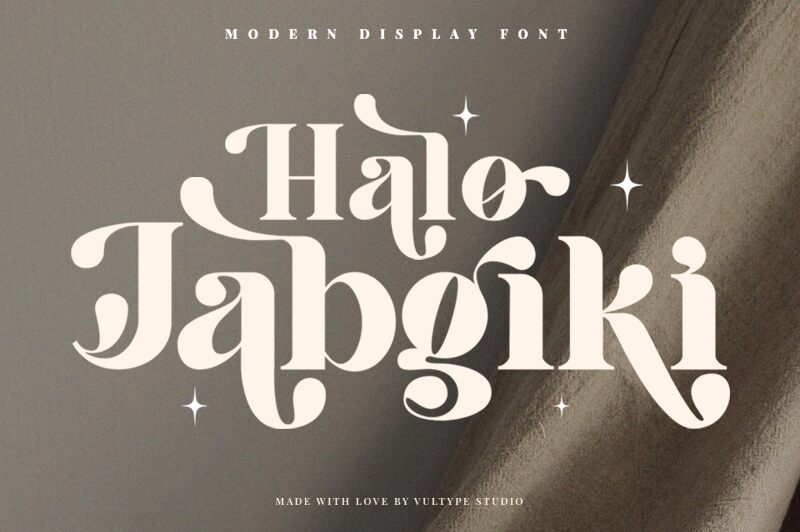
Jabgiki font is a free serif font designed by Vultype with elegance and flair in mind. The decorative and whimsical type of letters allow for a retro-inspired style with contemporary applications. Both fashionable and classy, the font is truly the best decorated option for your events or branding. Introduce the soft stylized letters to professional businesses as well as personal projects with a variety of possible options.
Every branding project requires a delicate font that highlights the product as well as the brand, and Jabgiki can do just that. Use it for fashion design, cosmetics branding, or logotypes. It can also be used for printed projects, cards, invitations, flyers, magazines, posters, websites, etc.